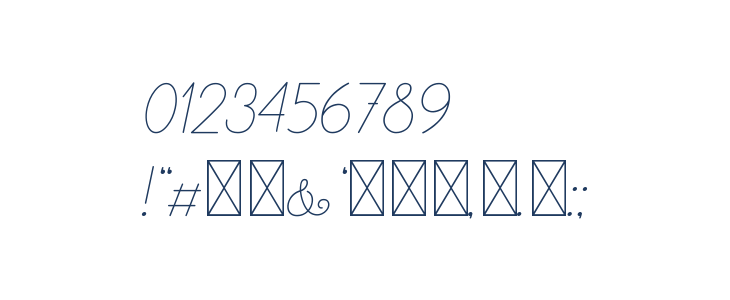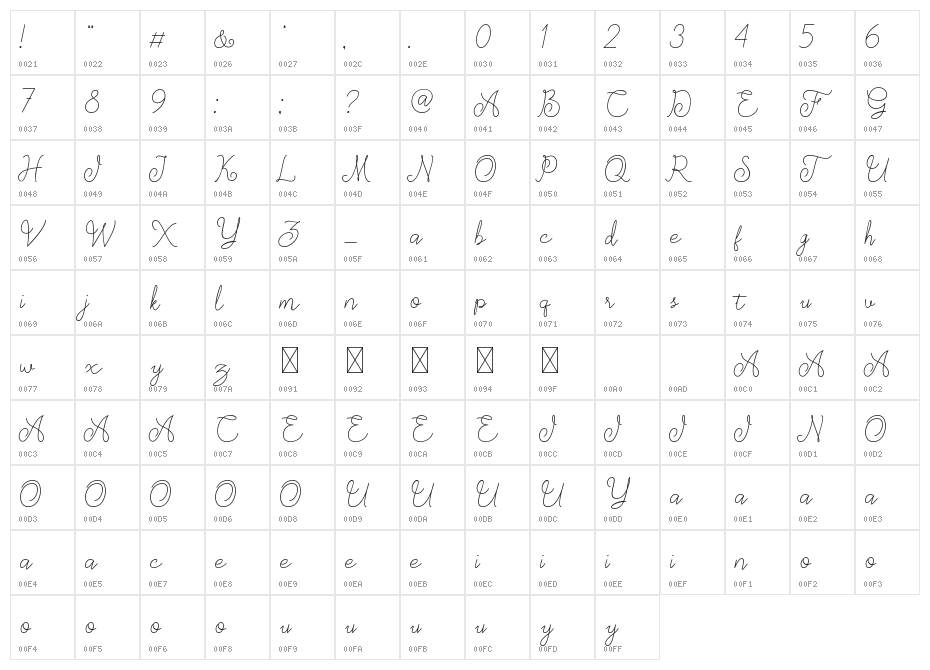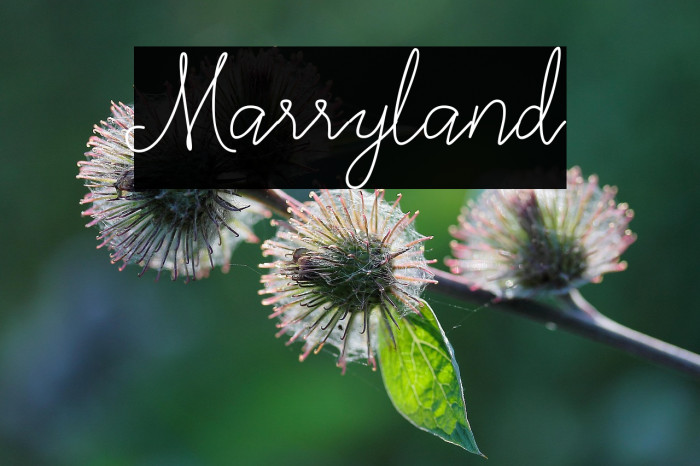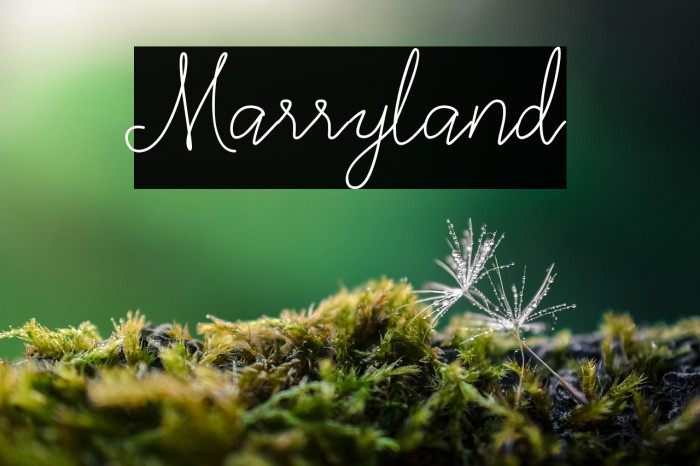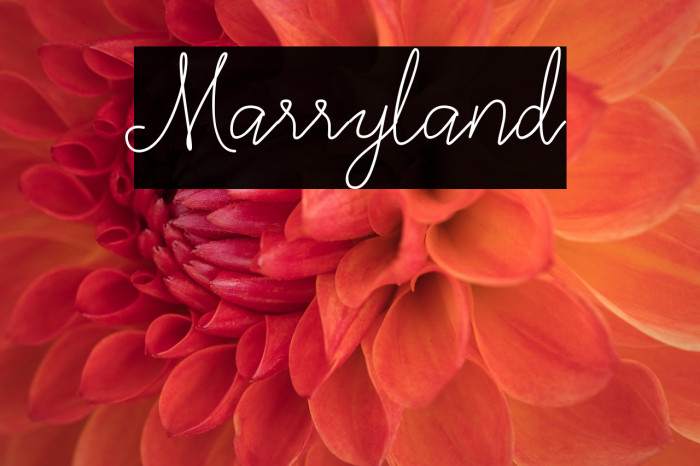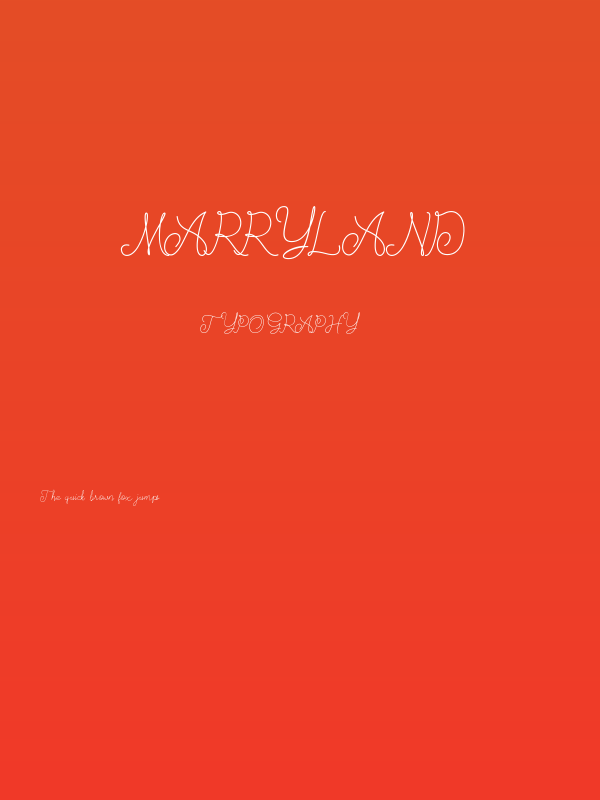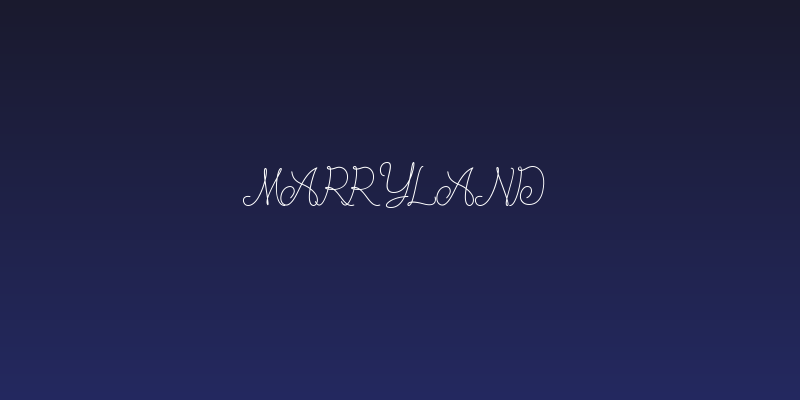
Marryland Font
Marryland Description
This elegant script font features a delicate and flowing design, characterized by its smooth, continuous strokes and graceful curves. The uppercase letters exhibit a sophisticated flair with subtle loops and swashes, while the lowercase letters maintain a consistent, fluid motion. The numerals are designed with a similar elegance, ensuring a cohesive look throughout. Special characters are thoughtfully crafted to complement the overall aesthetic. This font exudes a sense of refinement and charm, making it ideal for projects that require a touch of sophistication.
| Use Case | Invitations, Branding, Stationery |
| Proposed Projects | Ideal for wedding invitations, elegant branding, personal stationery, and upscale packaging. |